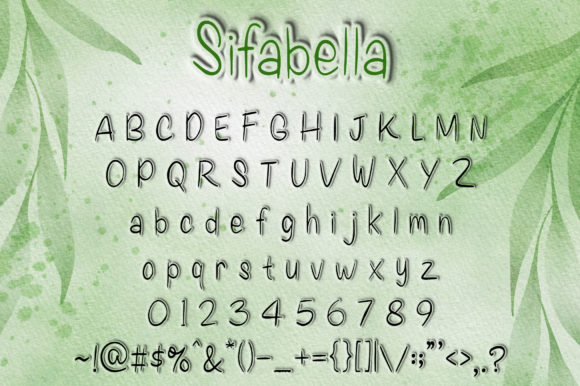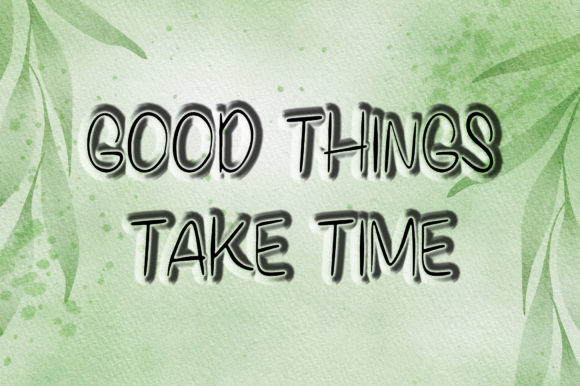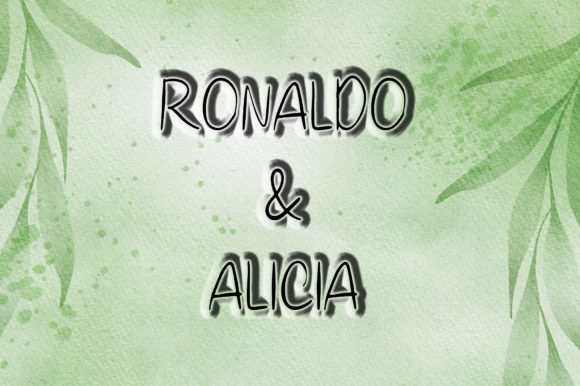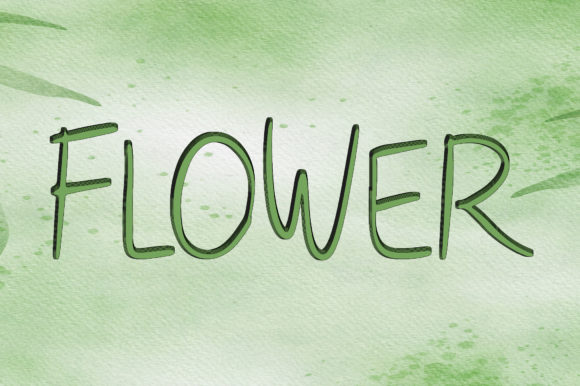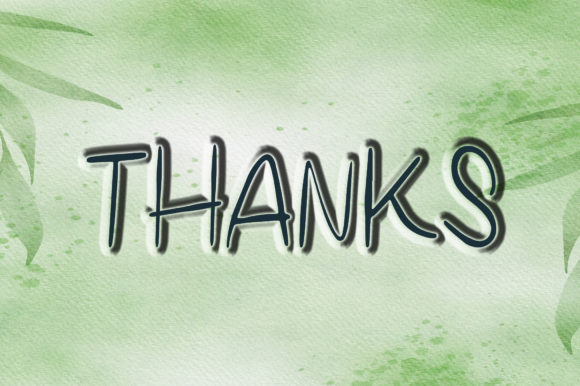
Introduction to Sifabella Font
Sifabella is a sweet and friendly handwritten font.
Key Features of Sifabella Font
Why Choose Sifabella Font?
Sifabella Font offers exceptional quality and versatility, making it a valuable addition to your design toolkit. Whether you’re creating for personal projects or commercial use, Sifabella Font delivers professional results.